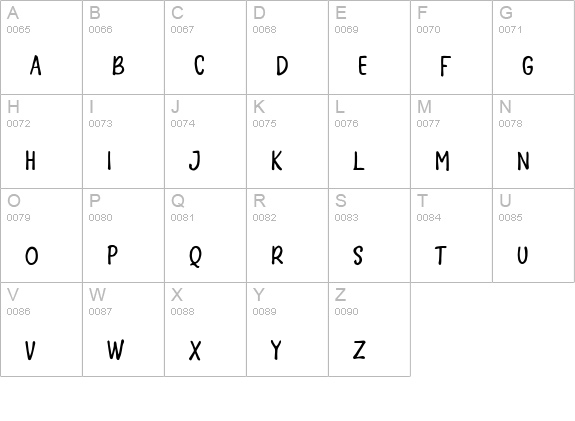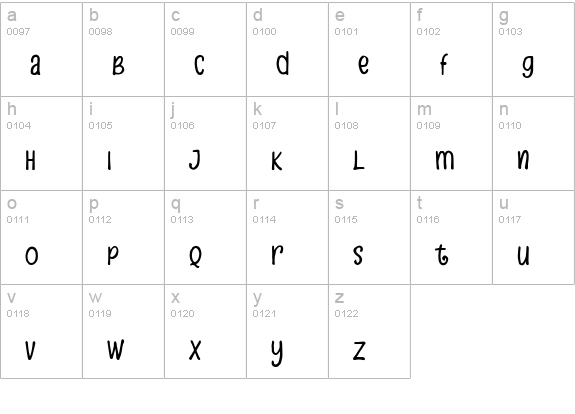
Zebudabi Font Details
Zebudabi is a demo font in the Fancy > Comic category, designed by patria_typestudio. It has been downloaded 89 times and is available for Windows, Mac and Linux.
Zebudabi font is a modern and stylish typeface that exudes elegance and sophistication. Its clean lines and sleek curves make it perfect for a wide range of design projects, from branding to editorial design. Zebudabi font is versatile and can be used for both headings and body text, adding a touch of class to any project.